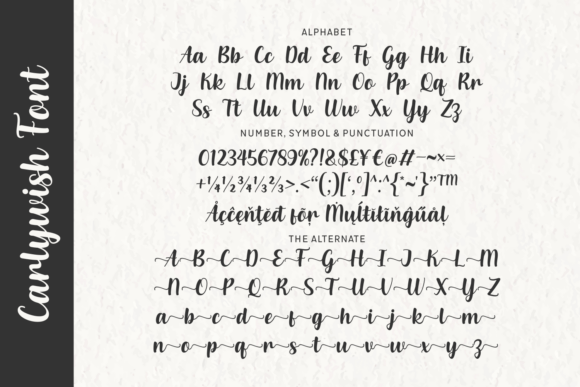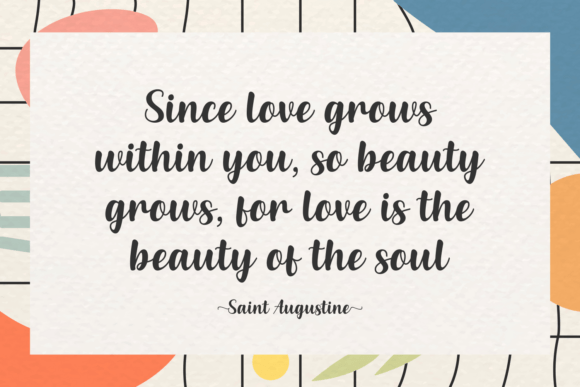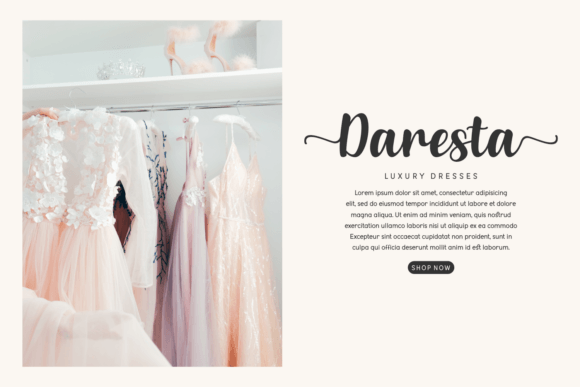
The Perfect Match: Unleashing the Charm of Carlywish Font
Have you ever stumbled upon a font that perfectly captures the essence of your creative vision? For many designers, this moment is like finding a long-lost treasure – it’s exhilarating and sets the tone for a beautiful collaboration. For me, this moment came when I discovered the Carlywish Font, a lively and charming script font that brings a touch of whimsy to any design.
Carlywish Font is more than just a pretty face – it’s a versatile tool designed to elevate your branding, social media, invitations, or decorative projects. Its playful swashes and handwritten style infuse a natural and joyful feel that’s hard to resist. Whether you’re a seasoned designer or a newcomer to the world of typography, the Carlywish Font is an invaluable addition to your creative arsenal.
Carlywish Font Key Features
- Unique Characteristics: The font features a unique blend of modern and elegant styles, with subtle flourishes and decorative elements that add a touch of sophistication to any design.
Designer Review: Carlywish Font
I recently had the chance to work with the Carlywish Font, and I must say, it’s a unique and interesting choice. ✨ Here are some aspects that I found particularly noteworthy:
- Playful and whimsical feel: Carlywish Font has a distinct personality that’s perfect for adding a touch of playfulness to your design.
- High level of customization: With its various font styles and sizes, you can easily tailor the font to fit your project’s specific needs.
- Perfect for branding: Carlywish Font’s quirky charm makes it an excellent choice for brands that want to stand out from the crowd.
However, I did encounter some limitations that may affect your design process: ⚠️
- Limited legibility: In certain font sizes or styles, the text can become difficult to read, especially for body copy.
- Inconsistent spacing: I noticed some inconsistencies in the font’s spacing, which can affect the overall flow of your design.
Overall, I’d say Carlywish Font is a great choice for projects that require a touch of personality and whimsy. While it may not be the most practical choice for large blocks of text, it’s perfect for headlines, titles, and other design elements where you want to add a bit of flair.
Getting the Most Out of Carlywish Font
For optimal results, use the Carlywish font in conjunction with bold or italic text to create visual interest. You can also experiment with different font sizes and colors to enhance the overall design.
The Carlywish font is ideal for creative projects, such as invitations, social media graphics, and branding materials. Its unique style makes it perfect for adding a touch of elegance and sophistication to your designs.
Alternatives to Carlywish Font
Playfair Display is a luxurious and elegant serif font perfect for creating high-end designs. It’s ideal for use in headings, titles, and other prominent text elements. Compared to Carlywish Font, Playfair Display has a more refined and sophisticated look, making it suitable for upscale branding and advertising materials.
Great Vibes is a beautiful and elegant script font that adds a touch of sophistication to any design. It’s ideal for use in titles, headings, and other prominent text elements where a more refined look is desired. Compared to Carlywish Font, Great Vibes has a more flowing and cursive feel, making it suitable for creative and artistic projects.